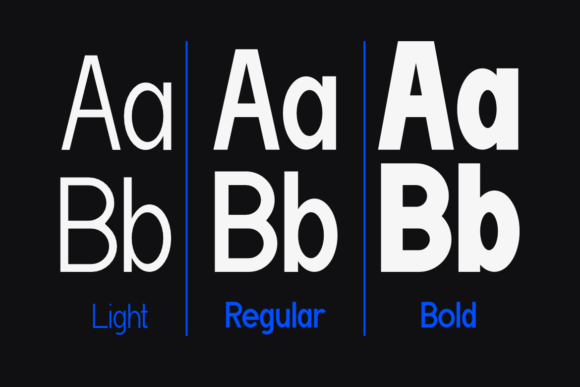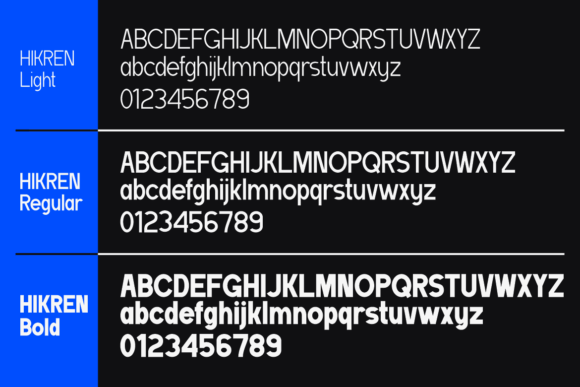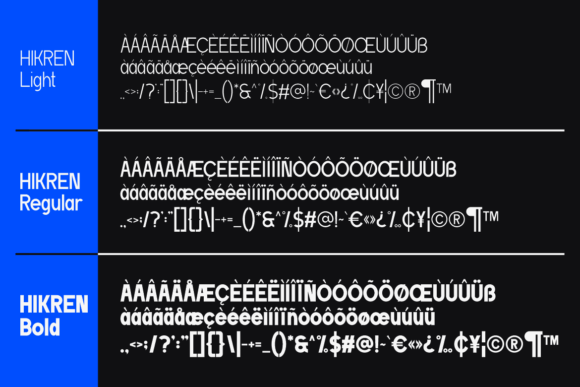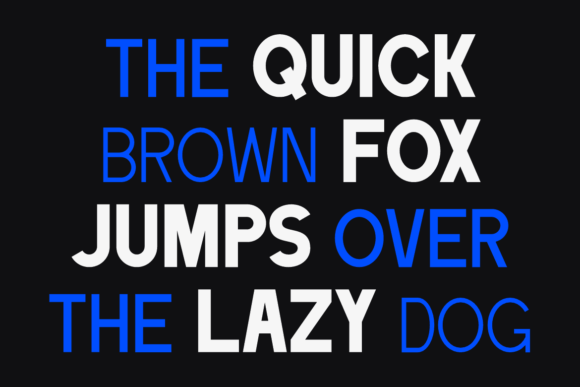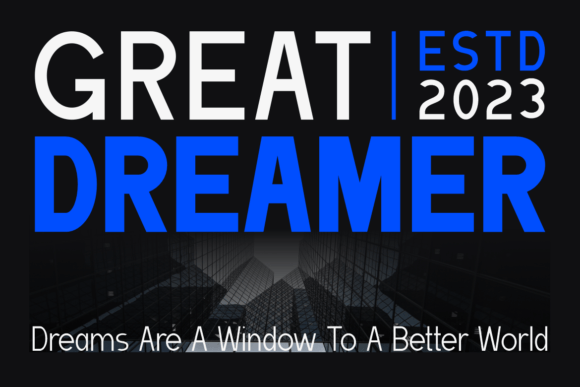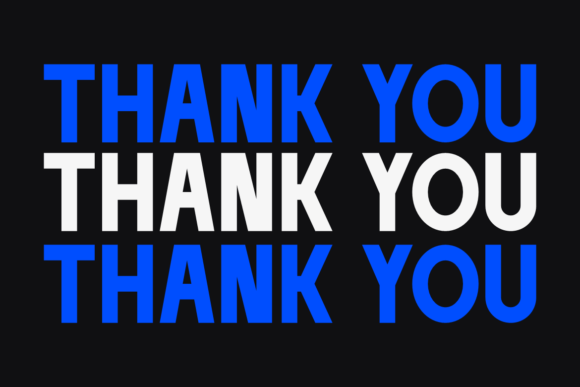
Introduction to Hikren Font
Have you ever found yourself stuck in the middle of a creative project, desperately searching for the perfect font to bring your vision to life? We’ve all been there. But what if I told you that your search is over? Introducing the Hikren Font, a highly versatile sans-serif font family that’s about to become your new go-to design resource.
With its clean, modern aesthetic and transparent background, the Hikren Font is the perfect choice for any creative project that demands high quality and sophistication. Whether you’re working on a logo, brochure, or website, this font family has got you covered with its various styles and combinations.
Key Features of Hikren Font
- Unique, high-quality design for creative projects and artistic expressions.
- Features a transparent background, allowing for easy layering and customization in creative projects.
- Designed to be highly legible, with crisp lines and precise details at resolutions up to 300 DPI.
- Perfect for use in digital art, graphic design, and other creative pursuits where a unique, high-quality font is required.
Honest Review: Hikren Font
As a designer, I’m always on the lookout for high-quality design resources to elevate my creative projects. Recently, I stumbled upon the Hikren Font, and I’m excited to share my honest review with you.
What works well: ✨ The Hikren Font is incredibly versatile, suitable for a wide range of design applications, from print to digital media. Its clean and modern design makes it an excellent choice for any creative project that requires a professional touch.
What doesn’t work well: ⚠️ While the Hikren Font is an excellent choice for most design projects, it may not be suitable for projects that require a more bold or playful font. In some cases, the font may appear too minimalist or subtle.
Overall impression: I’m thoroughly impressed with the Hikren Font. Its high-quality design, versatility, and free download make it an excellent addition to any designer’s toolkit. Whether you’re working on a personal or professional project, the Hikren Font is definitely worth considering.
- High-quality design suitable for various design applications
- May not be suitable for bold or playful projects
Hikren Font
The Hikren Font is a high-quality design resource that can elevate your creative projects. With its unique and elegant style, this font is perfect for any project that requires a touch of sophistication.
Tips for Getting the Most Out of Hikren Font
Here are a few tips for getting the most out of the Hikren Font:
- Use the font with a transparent background to create a clean and modern look.
- Experiment with different font sizes and styles to find the perfect look for your project.
- Combine the Hikren Font with other high-quality design resources for a unique and professional look.
The Hikren Font is perfect for a variety of projects, including:
- Business cards and marketing materials.
- Wedding invitations and event materials.
- Blog posts and articles.
Alternatives to Hikren Font
Monserrat Font is a popular sans-serif typeface ideal for modern creative projects. It features a high-quality design and is available for free download. Montserrat Font is perfect for designing logos, headings, and titles in your design project. It is more versatile than Hikren Font, with a wide range of font weights and styles available.
Open Sans Font is a clean and modern sans-serif typeface that is widely used in design projects. It features a transparent background and is highly legible, making it perfect for body text and paragraphs. Open Sans Font is a great alternative to Hikren Font, offering a more neutral and versatile design. It is also available for free download and comes in various font weights.